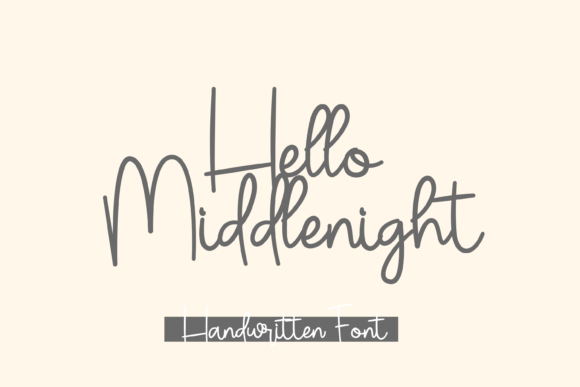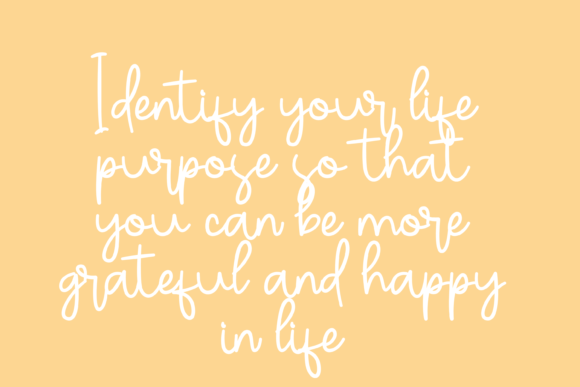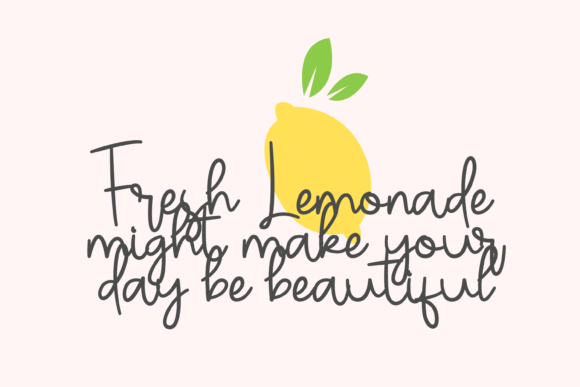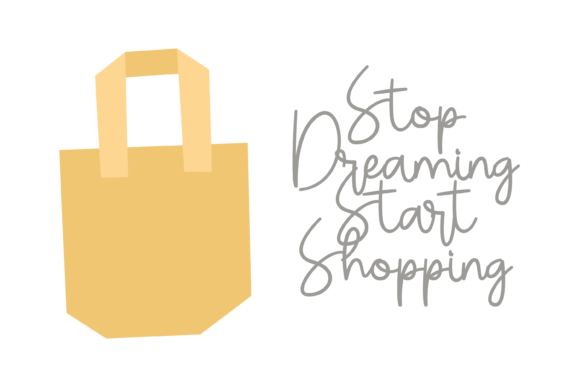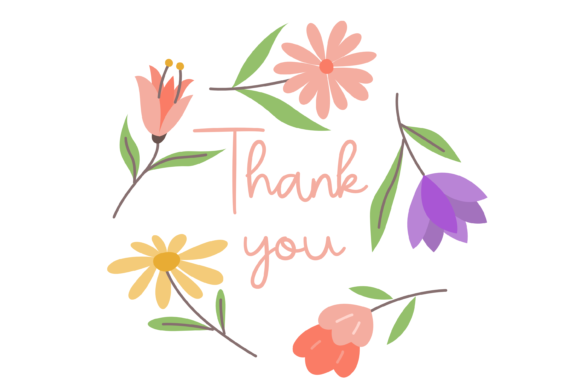
Hello Middlenight Font
About Hello Middlenight Font
Hello Middlenight is a delicate, thin and joyful handwritten font. This font was particularly crafted for those who need a beautiful and refreshing look to their designs.